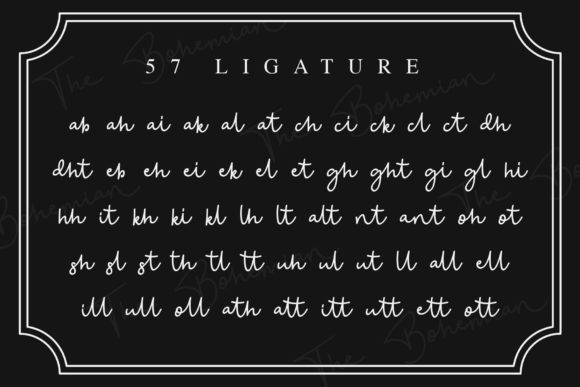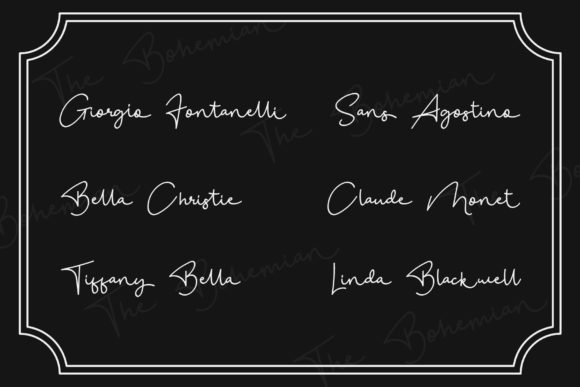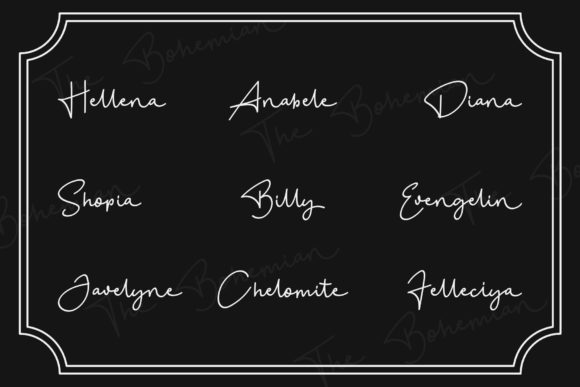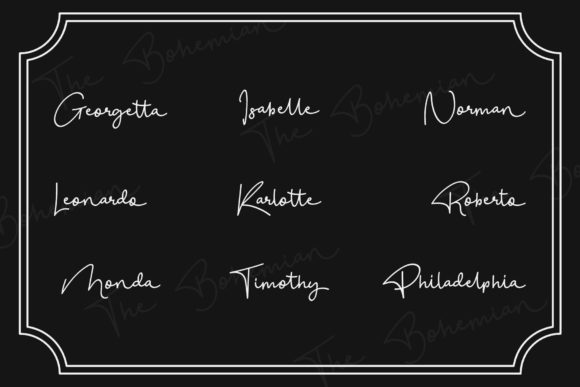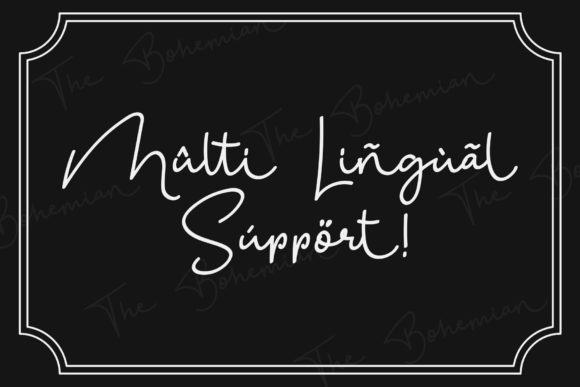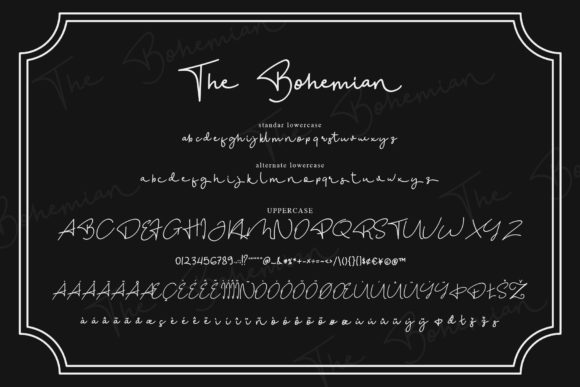
Unlock Your Creativity with Bohemian Font: The Ultimate Guide
Are you a designer, craftsperson, or simply a creative soul looking for a font that embodies the essence of free-spirited artistry? Look no further than the Bohemian Font. This stunning handwritten script font is designed to bring a touch of elegance and sophistication to your projects, making it perfect for a wide range of applications. In this comprehensive guide, we’ll dive into the world of Bohemian Font, exploring its features, uses, and benefits, as well as providing tips and inspiration for incorporating it into your work.
What is Bohemian Font?
The Bohemian Font is a beautiful, handwritten script font characterized by its simple yet classy style. Its fluid lines, subtle curves, and elegant strokes evoke a sense of refinement and poise, making it an excellent choice for designers and crafters seeking to add a touch of sophistication to their creations. Whether you’re working on a photography project, designing a business card, or crafting a quote, the Bohemian Font is sure to elevate your work to new heights.
Key Features of Bohemian Font
- Handwritten script style: The Bohemian Font boasts a beautiful, handwritten script style that adds a personal touch to any project.
- Simple and classy design: Its simple yet elegant design makes it perfect for a wide range of applications, from formal to informal.
- High versatility: The Bohemian Font can be used for photography, signatures, quotes, album covers, business cards, and much more.
- Elegant and sophisticated: The font’s fluid lines and subtle curves evoke a sense of refinement and poise, making it perfect for designers and crafters seeking to add a touch of elegance to their creations.
Uses of Bohemian Font
The Bohemian Font is incredibly versatile, making it suitable for a wide range of projects and applications. Here are some of the most popular uses of this stunning font:
- Photography: Add a touch of elegance to your photography projects with the Bohemian Font, perfect for captions, titles, and more.
- Signatures: Use the Bohemian Font to create beautiful, custom signatures that reflect your personality and style.
- Quotes: Make your quotes stand out with the Bohemian Font, perfect for social media posts, blog articles, and more.
- Album covers: Create stunning album covers with the Bohemian Font, adding a touch of sophistication to your music projects.
- Business cards: Elevate your business cards with the Bohemian Font, making a lasting impression on clients and colleagues.
Benefits of Using Bohemian Font
The Bohemian Font offers a range of benefits for designers, crafters, and creatives. Here are some of the most significant advantages of using this stunning font:
- Elegance and sophistication: The Bohemian Font adds a touch of refinement and poise to any project, making it perfect for designers and crafters seeking to create elegant and sophisticated creations.
- Versatility: The font’s versatility makes it suitable for a wide range of applications, from formal to informal.
- Easy to read: The Bohemian Font is clear and easy to read, making it perfect for body text, titles, and more.
- Unique and creative: The font’s unique and creative style makes it perfect for designers and crafters seeking to stand out from the crowd.
Tips for Using Bohemian Font
To get the most out of the Bohemian Font, here are some tips and best practices to keep in mind:
- Use it sparingly: Use the Bohemian Font sparingly to avoid overwhelming your design. It’s perfect for titles, headings, and accents.
- Pair it with other fonts: Experiment with pairing the Bohemian Font with other fonts to create a unique and visually appealing combination.
- Adjust the size and color: Adjust the size and color of the Bohemian Font to suit your design needs, making sure it stands out without overpowering your content.
| Author | alphArt |
The Bohemian Font is a stunning handwritten script font that offers a unique blend of elegance, sophistication, and creativity. Its versatility, simplicity, and classy style make it perfect for a wide range of applications, from photography and signatures to quotes and album covers. Whether you’re a designer, craftsperson, or simply a creative soul, the Bohemian Font is sure to elevate your work to new heights. So why wait? Unlock your creativity with the Bohemian Font today and discover a world of limitless possibilities!